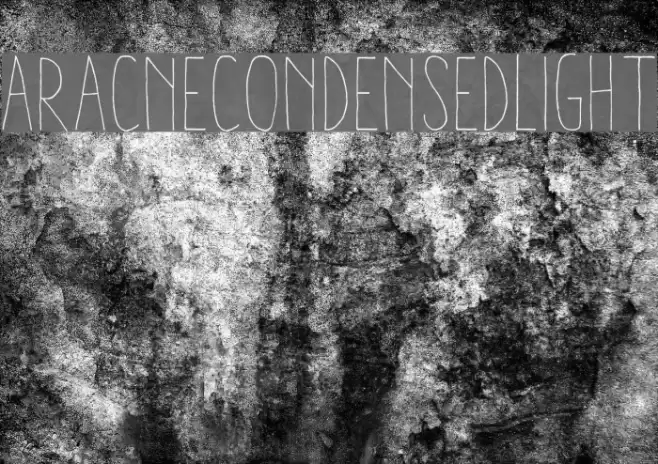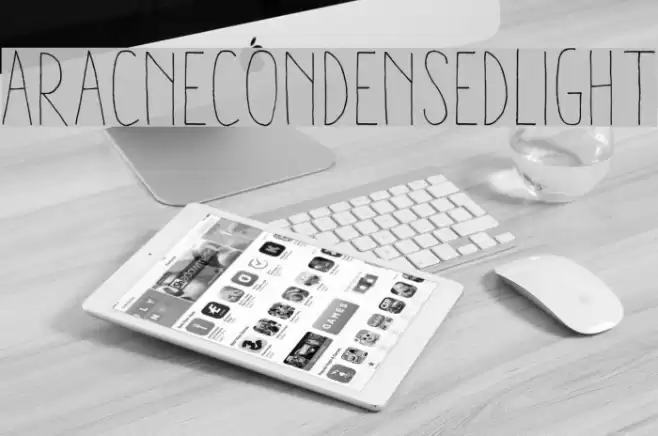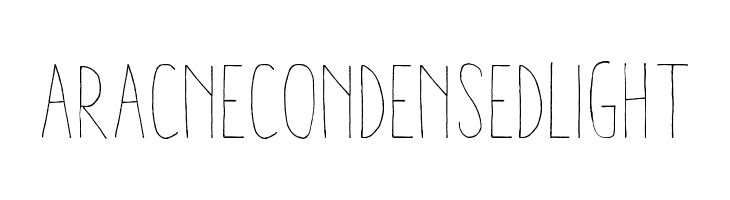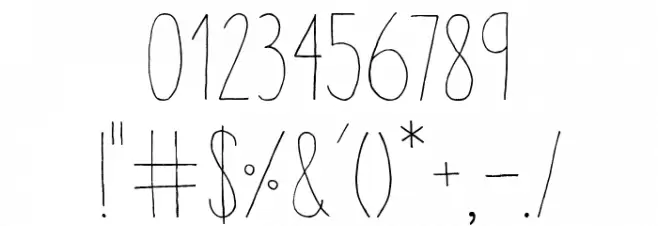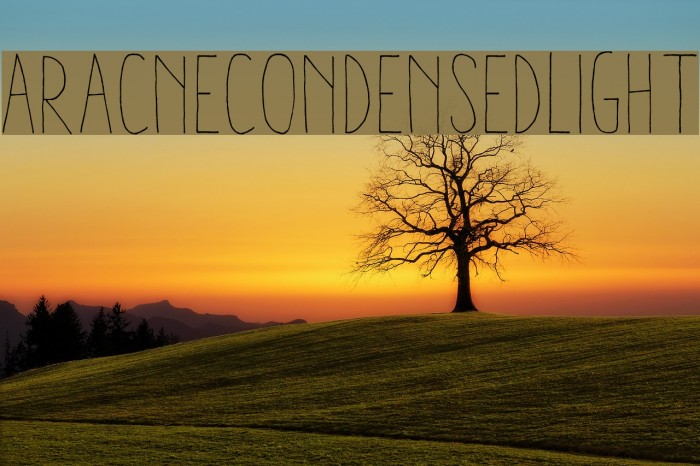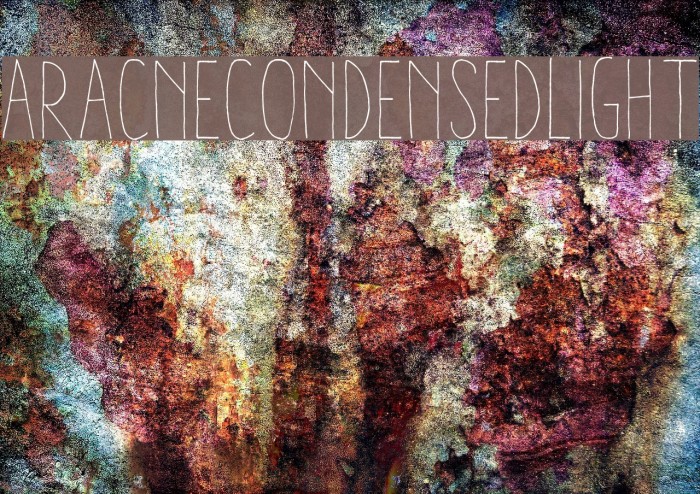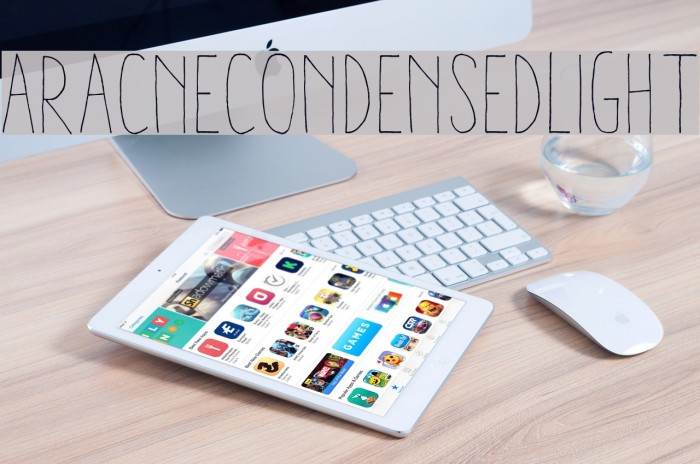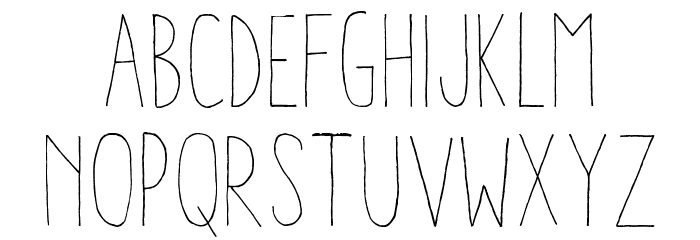
AracneCondensedLight Font
AracneCondensedLight Description
This font features a delicate and slender design, characterized by its tall and narrow letterforms. The strokes are thin and consistent, giving it a light and airy appearance. The uppercase and lowercase letters maintain a uniform height, contributing to its condensed style. The numerals and special characters are crafted with the same thin strokes, ensuring a cohesive look across all characters. This font's minimalistic and elegant design makes it suitable for projects that require a subtle yet sophisticated touch.
A slender, condensed font with thin, consistent strokes and a minimalistic design from Uncategorized fonts.
- Proposed Projects: Ideal for fashion magazines, elegant invitations, minimalist branding, and modern web design.